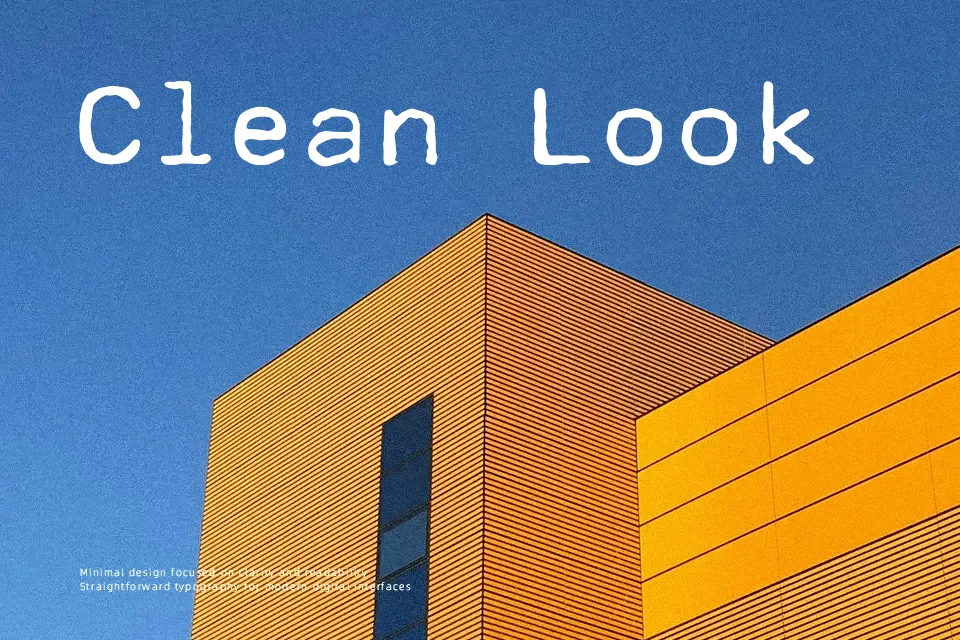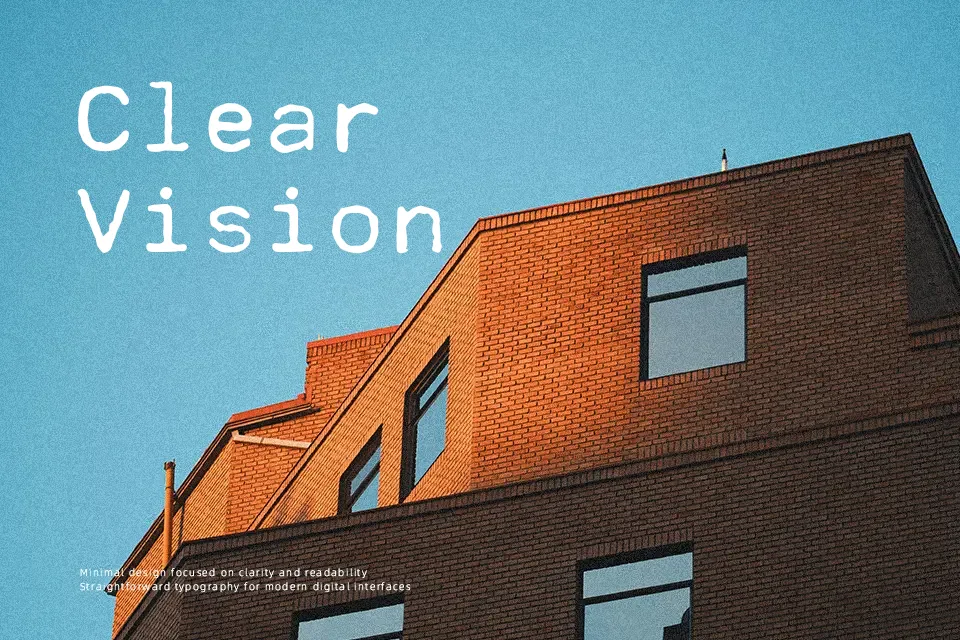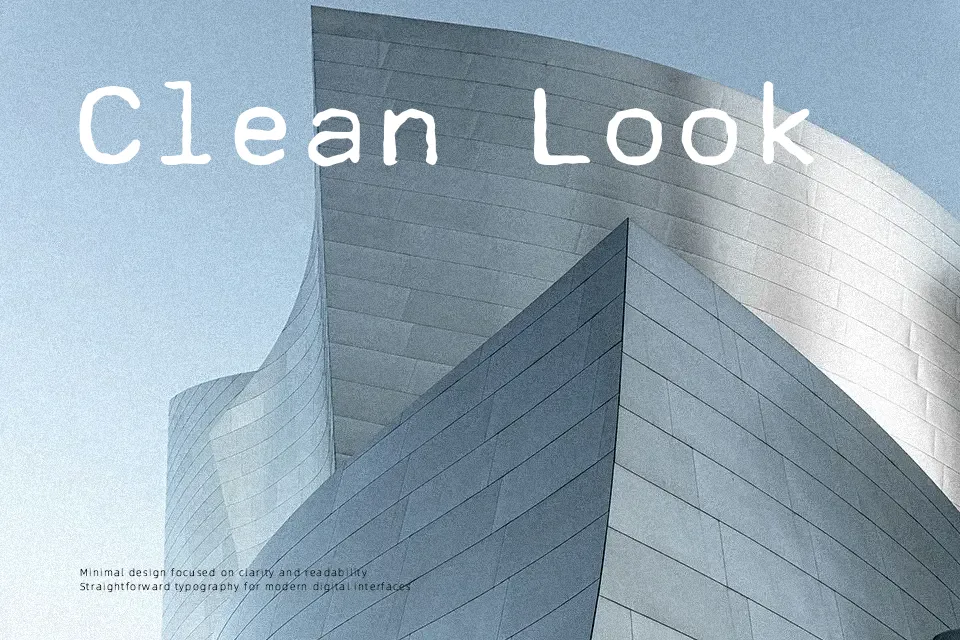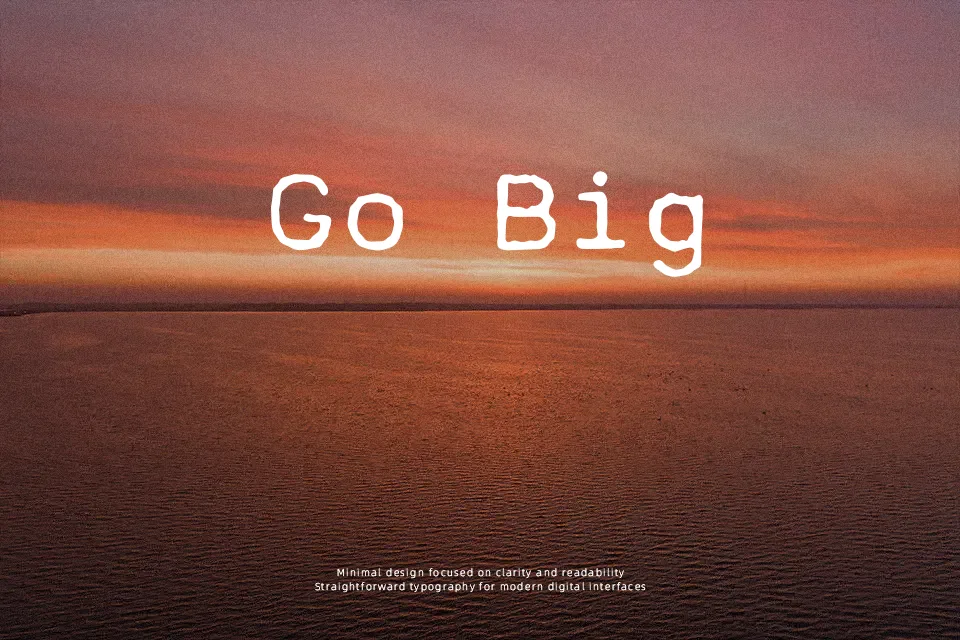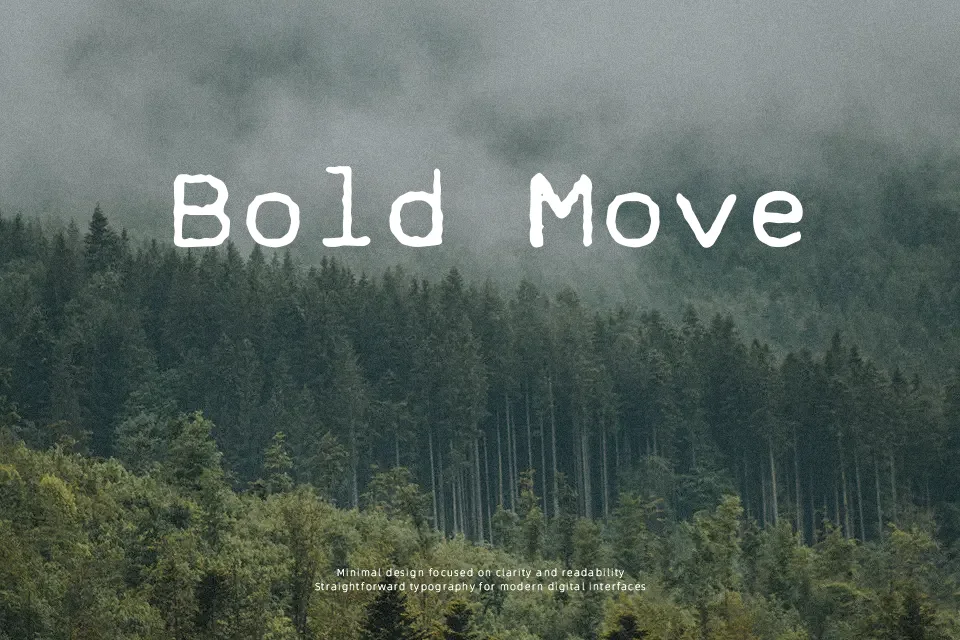
Cella Font
Cella Font delivers an authentic typewriter structure defined by uniform glyph widths, squared slab serifs, and subtle mechanical stroke irregularities. The letterforms display balanced vertical stems with open internal counters, producing a rhythmic, industrial cadence across horizontal text lines. Because character spacing is fixed and generous, individual glyphs remain immediately distinguishable in titles and short excerpt blocks. The wide, consistent character widths maintain clear individual letter definition across medium display sizes. This typeface proves particularly effective for period book covers, retro branding, and display callouts. However, the rigid monospaced proportions reduce reading comfort in long paragraphs and dense editorial body copy.
vintage product packaging,retro poster headlines,archival document headers,period book covers
continuous novel text,dense corporate reports,small mobile interface labels,multi-page editorial body copy
Perfect for branding, editorial, and headline, with a classic and display style.